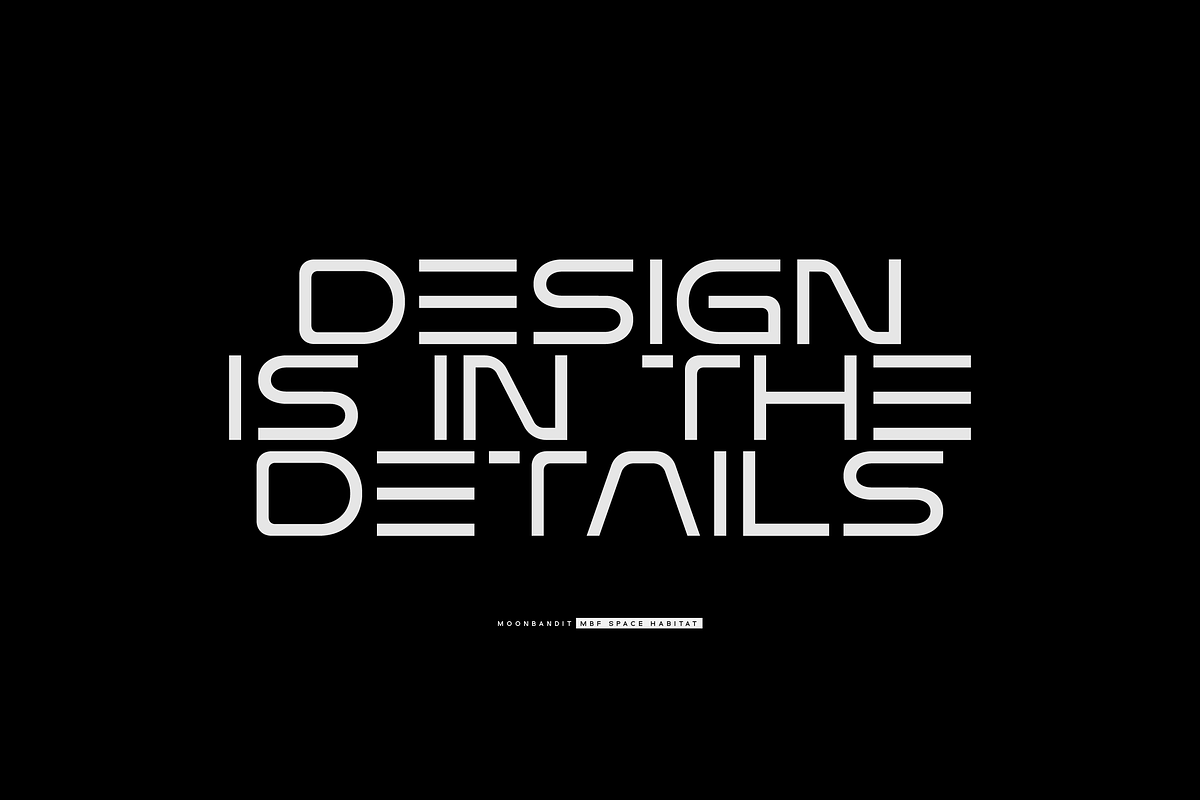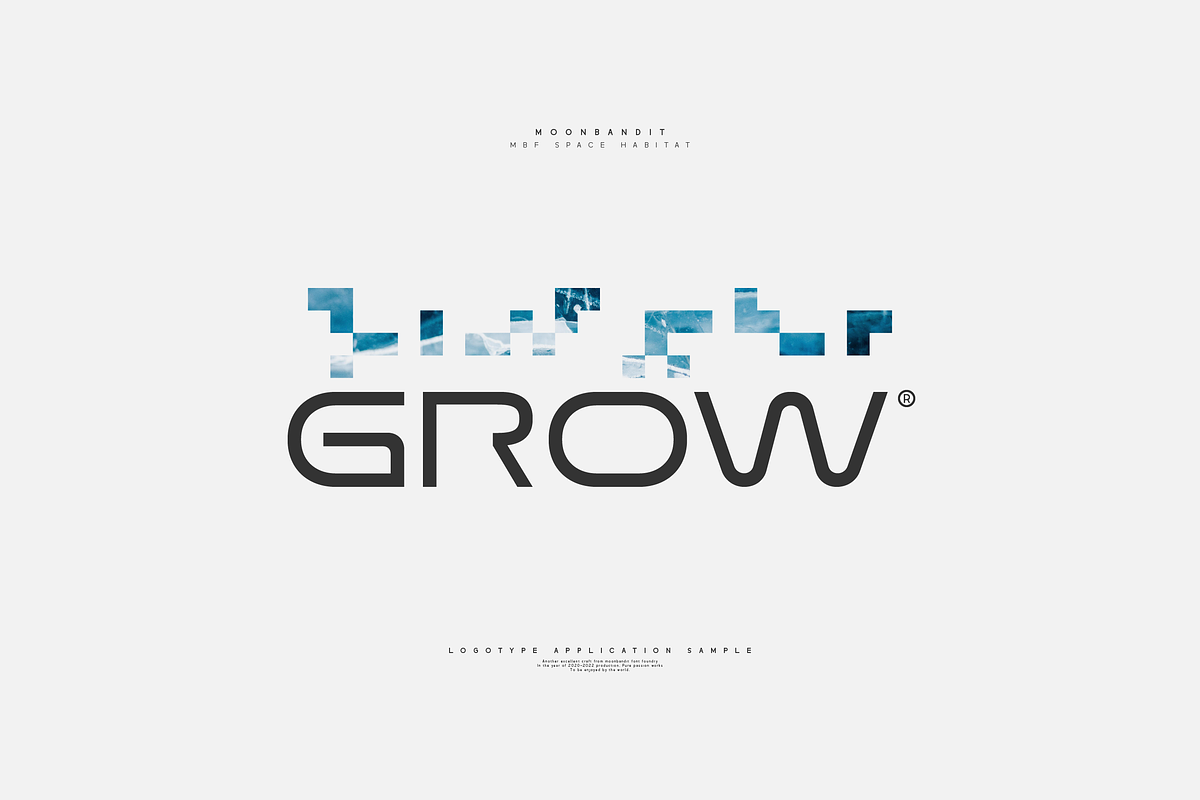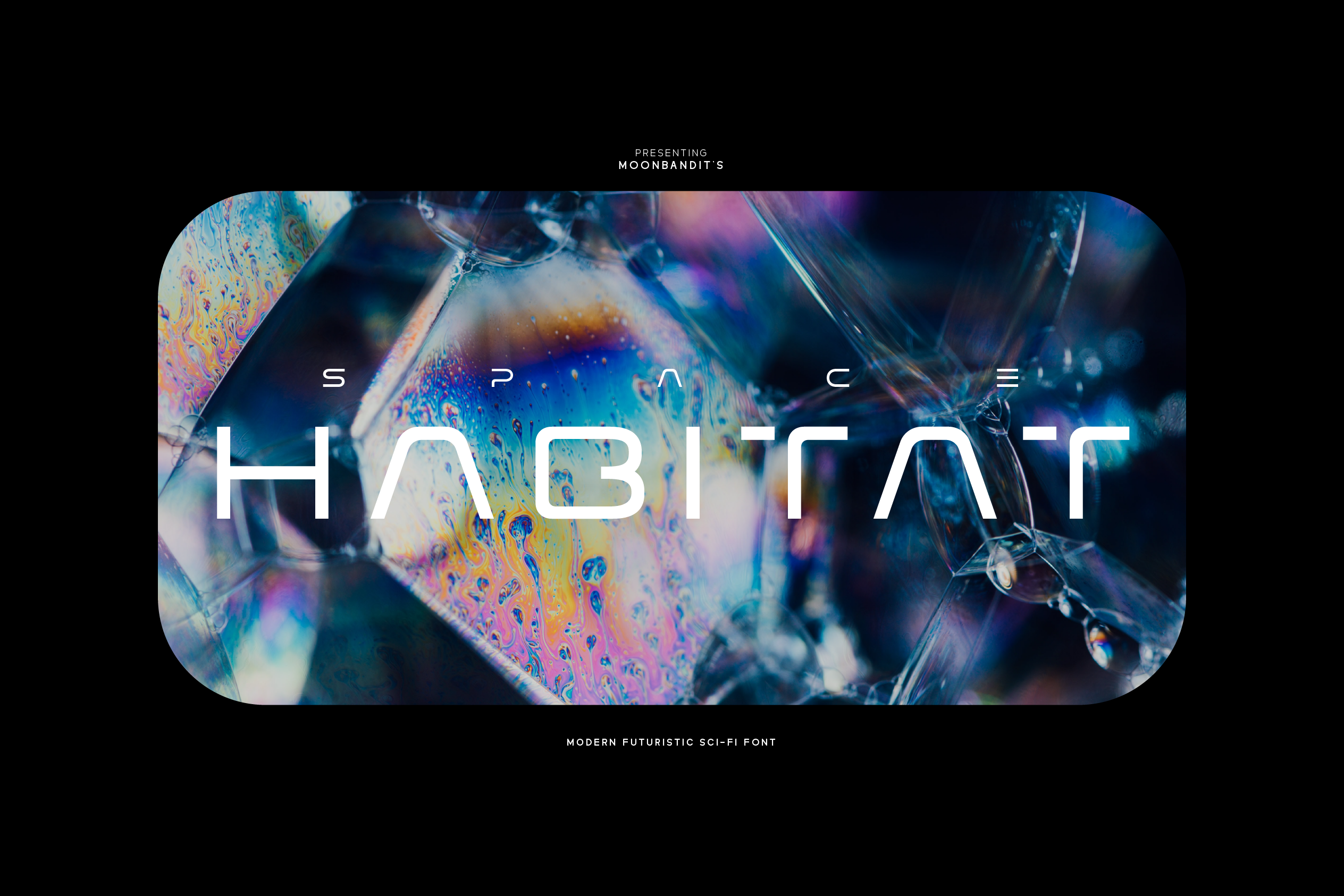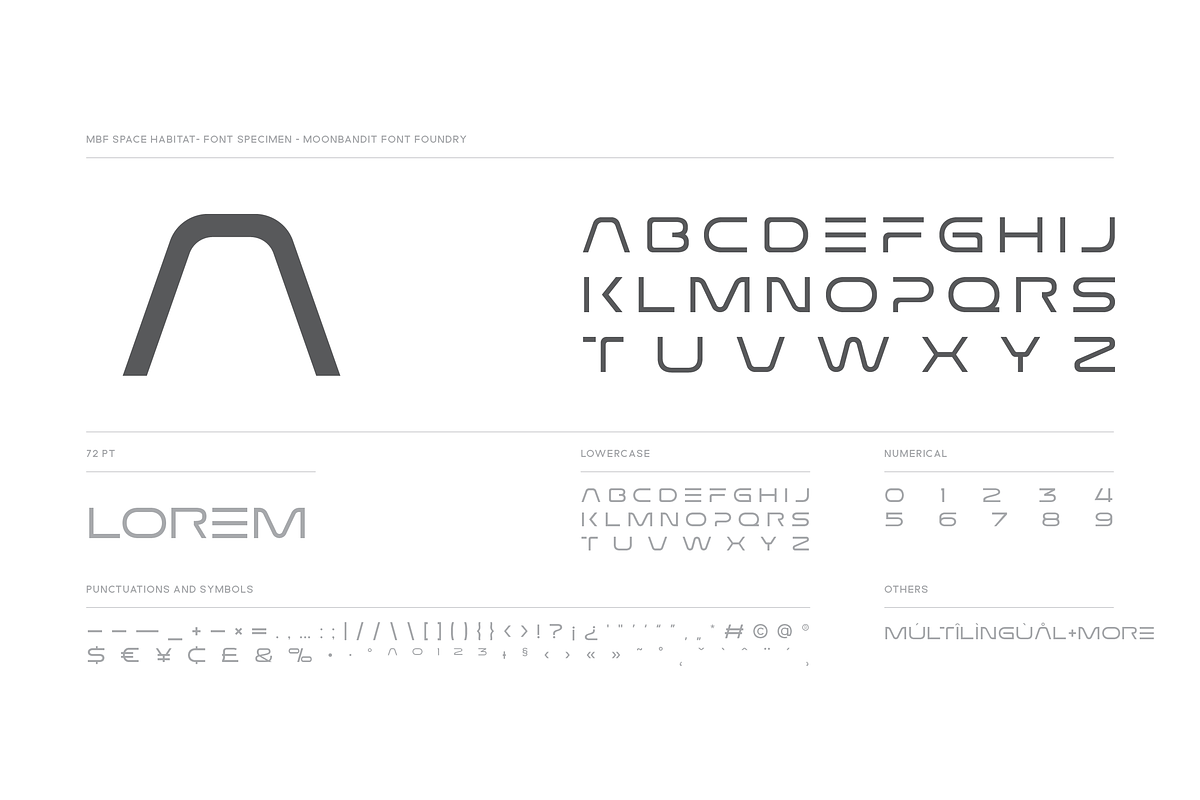
MBF Space Habitat - Scifi font
Space habitat is a modern minimalist sans serif display font. Wide and wavy with a lot of rounded corner and sharp edge, emphasize the futuristic scifi theme. Perfect usage includes logo, poster, display, headline, t-shirt design and many more.